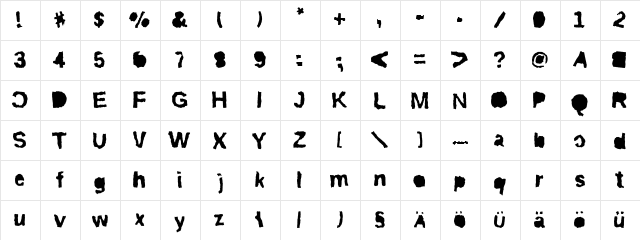
ripTRASH Mirror
Design Context for ripTRASH Typeface
ripTRASH is a composed and adaptable typeface that performs quietly and consistently across a wide range of design contexts.